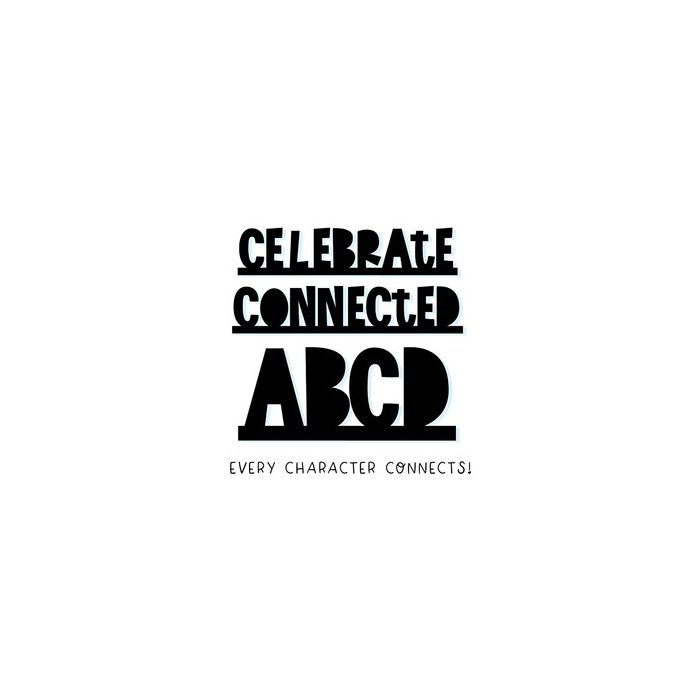
BFC Celebrate Connected Party Cake Topper Cut Out Font
Celebrate Connected is a font that connects through every single character! You can use this in projects where you want to weld everything together.